Can’t decide on a font? The easiest fonts to read are generally sans-serif styles like Arial, Calibri, and Helvetica. They have clean lines and open letterforms, making them ideal for digital screens and quick comprehension. Choosing the right font significantly impacts readability and user experience.
Ever stared at a webpage or a document, squinting to make out the words? It’s a common frustration! The font you see can drastically change how easy it is to understand. Whether you’re designing a website, creating a presentation, or just writing an email, picking the right typeface matters. It’s not just about looking pretty; it’s about clear communication. This guide will demystify the world of fonts and help you find the easiest ones to read, saving you and your audience from unnecessary eye strain and confusion. Let’s dive in and discover how to make your text shine!
Why Font Readability Matters More Than You Think
Think of fonts as the voice of your text. Some voices are clear and direct, while others are whispery or overly dramatic. In the same way, fonts convey tone and influence how easily your message is received. Good readability means your audience can consume your content quickly and effortlessly. This is crucial for websites where users have short attention spans, or for important documents where clarity is paramount.
Poor font choices can lead to:
- Increased bounce rates on websites (people leave quickly).
- Lower engagement with marketing materials.
- Misunderstandings or missed information.
- A negative perception of your brand or content.
- Eye strain and fatigue for readers.
Conversely, choosing the right font can:
- Improve user experience and engagement.
- Enhance your brand’s professionalism and credibility.
- Make your content more accessible to a wider audience, including those with visual impairments.
- Guide the reader’s eye smoothly through the text.
For the “easiest font to read on computer screen,” digital friendliness is key. We’ll explore which styles excel in this environment.
Understanding Font Categories: Serif vs. Sans-Serif
Before we pick the easiest fonts, let’s understand the two main families: Serif and Sans-Serif. This distinction is fundamental to typography and will help you make informed decisions.
Serif Fonts
Serif fonts have small decorative strokes, or “feet,” attached to the ends of the main strokes of letters. Think of these as little embellishments.
Examples: Times New Roman, Georgia, Garamond.
History & Use: Originating from ancient Roman inscriptions, serifs were thought to help guide the eye along lines of text in printed materials. They are often associated with tradition, authority, and formality. In print, especially in long-form reading like books or newspapers, they can be very comfortable to read.
Sans-Serif Fonts
Sans-serif fonts, as the name suggests (“sans” means “without” in French), do not have these decorative strokes. They have clean, straight ends.
Examples: Arial, Helvetica, Calibri, Open Sans.
History & Use: Sans-serifs emerged in the early 19th century and gained popularity with the rise of modern design and advertising. They are widely considered to be more legible on digital screens because pixels can sometimes make the fine details of serifs appear blurry. They convey modernity, simplicity, and approachability.
The Easiest Font to Read on Computer Screens: Sans-Serifs Reign Supreme
When it comes to digital displays, especially at smaller sizes, sans-serif fonts generally offer superior readability. The clean, unadorned nature of their letterforms works exceptionally well with the pixel-based rendering of screens. The lack of small decorative strokes means there’s less chance for artifacts or blurriness to interfere with recognition.
For the “easiest font to read on computer screen,” look for sans-serifs that are:
- Open: Letters have ample space within them (e.g., the counter of ‘o’ or ‘a’).
- Clear Letterforms: Distinct shapes that are easily distinguishable (e.g., ‘i’ vs. ‘l’).
- Good X-Height: The height of lowercase letters without ascenders or descenders is proportional.
- Consistent Stroke Width: Letters have a uniform thickness, rather than dramatic thicks and thins.
Top Picks for the Easiest Fonts to Read
Let’s explore some of the most recommended fonts known for their exceptional readability, especially on screens.
1. Arial
One of the most ubiquitous fonts, Arial is a safe and highly legible choice. It’s a humanist sans-serif typeface, meaning it has characteristics of both old-style serifs and modern sans-serifs. Its familiarity makes it instantly recognizable and easy to process.
Pros: Extremely common, works well on all systems, good range of weights.
Cons: Can be seen as generic or unoriginal by some designers.
2. Calibri
Calibri is the default font for Microsoft Office applications and is beloved for its modern, clean, and friendly appearance. It’s designed to be highly readable on screen, with slightly rounded edges that give it a soft, approachable feel.
Pros: Excellent screen rendering, modern feel, widely available.
Cons: Can be too informal for very serious corporate branding.
3. Helvetica
A true icon of sans-serif typography, Helvetica (or its close relative, Neue Helvetica) is praised for its neutrality and clarity. It’s used by countless global brands and in public signage due to its objective and highly readable nature.
Pros: Timeless design, exceptional clarity, versatile across many applications.
Cons: Can sometimes appear cold or corporate; licensing can be a factor for commercial use.
4. Open Sans
Developed by Google, Open Sans is a highly popular humanist sans-serif typeface that’s optimized for web and mobile interfaces. It has a neutral yet friendly appearance and excellent legibility across various sizes and resolutions.
Pros: Web-optimized, extensive character set and language support, free to use.
Cons: Very widely used, so might not stand out if originality is key.
5. Lato
Designed by Łukasz Dziedzic, Lato is a sans-serif font that aims for a feeling of warmth and seriousness simultaneously. It has semi-rounded details that give it a friendly vibe, but its structure is strong and stable, making it very readable.
Pros: Balanced feel, good readability, available on Google Fonts.
Cons: Similar to Open Sans in terms of widespread use.
6. Roboto
Another Google typeface, Roboto was designed by Christian Robertson. It’s a neo-grotesque sans-serif that balances mechanical efficiency with open, friendly curves. It’s the default font for Android and is excellent for UI design.
Pros: Designed for screens, modern and versatile, available on Google Fonts.
Cons: Can be perceived as slightly more technical.
Factors Affecting Font Readability
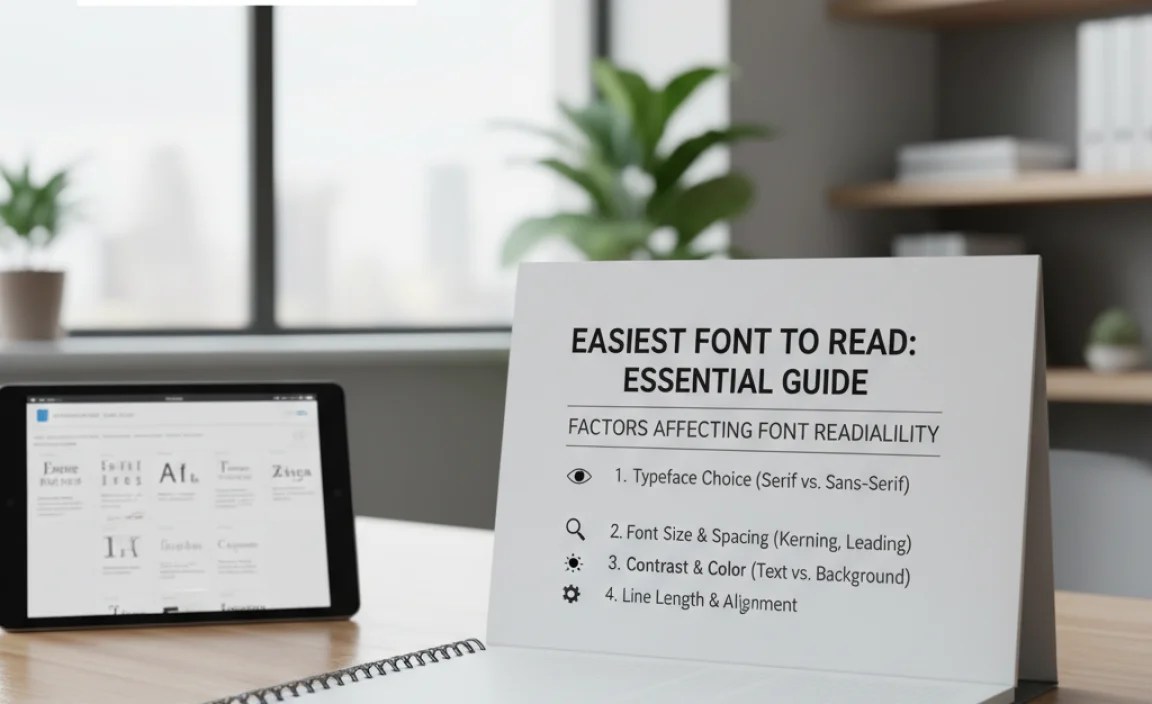
While sans-serifs generally lead the pack for screen readability, several other factors play a vital role:
1. Font Weight
The thickness of your font’s strokes. Regular or Book weights are usually the most readable for body text. Too bold (Heavy or Black) can fill in counters and become illegible, while too light (Hairline or Light) can be too thin for screens, especially at smaller sizes.
2. Font Size
This is perhaps the most obvious factor. Text that is too small will strain the eyes regardless of the font chosen. For body text on a computer screen, aim for a minimum of 16px (pixels) or 1em. Larger sizes are often better for headings or if your audience is diverse in age.
According to the Web Content Accessibility Guidelines (WCAG), text should be resizable without loss of content or functionality. This reinforces the importance of using scalable font sizes.
3. Line Height (Leading)
The space between lines of text. Too little spacing makes lines feel crowded and blend together, hindering readability. Too much spacing can make the text feel disconnected. A general rule of thumb for body text is a line height of 1.5 times the font size (e.g., 16px font with 24px line height).
4. Line Length (Measure)
The number of characters or words per line. Lines that are too long become hard to follow, as the eye struggles to jump back to the beginning of the next line. Extremely short lines can disrupt the reading flow. For web content, aim for around 50-75 characters per line for optimal readability.
5. Contrast
The difference in luminance between the text color and its background color. High contrast is essential for readability. Black text on a white background offers excellent contrast. Avoid low-contrast combinations like light gray text on a white background, or dark blue on black.
6. Spacing (Kerning & Tracking)
- Kerning: The space between specific pairs of letters. Well-kerned fonts have adjusted spacing where needed (e.g., to prevent ‘AV’ from looking too far apart).
- Tracking: Refers to the overall tightness or looseness of letters in a block of text. Slightly increased tracking can improve readability for some fonts, especially at smaller sizes, by giving letters a bit more breathing room.
When Serifs CAN Work on Screen
While sans-serifs are generally favored for digital readability, some serif fonts are designed with screen use in mind. These often have stronger, clearer serifs and more open letterforms than their traditional counterparts.
Examples of readable serif fonts for screen:
- Georgia: Designed by Matthew Carter specifically for Microsoft, Georgia is known for its excellent screen legibility, featuring sturdy serifs and a generous x-height.
- Merriweather: A popular Google Font, Merriweather is a serif typeface designed to be very readable on screen. It has a tall x-height and strong, robust serifs.
- Lora: Another well-designed Google Font, Lora is a well-balanced contemporary serif with roots in calligraphy, offering good readability for longer texts on screen.
Tip: If you’re considering a serif font for digital use, test it at your intended sizes. Does it remain clear and crisp, or do the serifs get lost or create visual noise?
Beyond Body Text: Display Fonts
The advice for “easiest font to read” usually applies to body text – the main content of your writing. However, for headings, titles, logos, and decorative elements, you might use “display fonts.” These fonts are designed to catch the eye and are often more stylized.
While readability is still important, bolder, more decorative, or even some stylized script or serif fonts can work well here because they are used in smaller blocks of text and at larger sizes.
When choosing display fonts, consider:
- Impact: Does it grab attention?
- Brand Personality: Does it reflect your brand’s tone?
- Legibility at Size: Even decorative fonts need to be decipherable when they are large.
How to Choose the Easiest Font for Your Project: A Step-by-Step Guide
Picking the perfect font doesn’t have to be overwhelming. Follow these steps to ensure you choose for maximum readability and impact.
Step 1: Define Your Purpose and Audience
Who are you writing for, and what is the main goal of your text? A children’s book will have different font needs than a legal document. A tech startup might opt for modern sans-serifs, while a historical society might lean towards classic serifs.
Step 2: Consider the Medium
As we’ve discussed, digital screens (websites, apps, presentations) generally favor sans-serifs. Print (books, magazines, flyers) can often accommodate serifs beautifully. If your content will be viewed on both, choose a versatile font or use different fonts for different contexts (e.g., sans-serif for web headlines, a readable serif for print body text).
Step 3: Prioritize Readability for Body Text
For the bulk of your content, aim for clarity above all else. Simple, well-spaced sans-serifs are your safest bet for screen readability. Look for ample white space within and around letters.
Step 4: Test Different Fonts
Don’t settle for the first font you find. Type out a paragraph of your content in a few different candidate fonts. View them at different sizes and on different devices if possible. See which one feels most comfortable to read.
Step 5: Pay Attention to Font Weight and Size
Ensure you’re using an appropriate weight (usually Regular or Medium) and consider the size. For web, 16px is often a good starting point for body text.
Step 6: Check Line Height and Length
Adjust your line height so there’s comfortable space between lines. Keep your line lengths within the recommended character counts for easy scanning.
Step 7: Evaluate Contrast
Make sure your text color and background color have sufficient contrast for accessibility and ease of reading. Tools like color contrast checkers can help ensure you meet WCAG standards, which is vital for web accessibility.
Font Pairing: Combining for Impact
Often, you’ll want to use more than one font to create visual hierarchy. A common and effective pairing is to combine a serif and a sans-serif font.
Classic Pairing:
- Headings: A distinctive serif (e.g., Playfair Display, Merriweather).
- Body Text: A clean sans-serif (e.g., Open Sans, Lato, Roboto).
This creates clear contrast and guides the reader’s eye from attention-grabbing headings to easily digestible content.
Modern Pairing:
- Headings: A bold, strong sans-serif (e.g., Montserrat, Oswald).
- Body Text: A simple, highly readable sans-serif (e.g., Arial, Calibri, Open Sans).
This approach emphasizes modern, clean, and direct communication.
When pairing, ensure the fonts complement each other’s personality and x-height. Avoid using too many fonts – two or three is usually the maximum you’ll need.
Where to Find Easy-to-Read Fonts
There are numerous resources for finding high-quality fonts, many of them free!
Free Resources:
- Google Fonts: A vast library of open-source fonts, all optimized for web use and free to download and use. This is an excellent starting point for finding readable sans-serifs and serifs.
- Font Squirrel: Offers a curated collection of free fonts that are licensed for commercial use.
- DaFont: While it has a huge selection, be mindful of licensing for commercial projects. Many are free for personal use only.
Paid Resources:
- Adobe Fonts: Included with Adobe Creative Cloud subscriptions, offering a premium selection of high-quality fonts.
- MyFonts: One of the largest marketplaces for commercial fonts, offering a vast array of styles and foundries.
- Linotype / Monotype: Major type foundries with extensive professional libraries.
When selecting from these sites, always check the licensing agreements to ensure you can use the font for your intended purpose (personal vs. commercial, web use vs. print, etc.).
FAQ: Your Top Font Readability Questions Answered
What is the single easiest font to read on a computer screen?
For general computer screen readability, sans-serif fonts like Arial, Calibri, and Helvetica are consistently ranked among the easiest to read due to their clean lines that render well on digital displays.
Are serif fonts hard to read on screens?
Traditional serif fonts can sometimes be harder to read on screens, especially at smaller sizes, because the fine serifs can appear blurry or pixellated. However, some modern serif fonts are designed specifically for screen readability.
Which font is best for long online articles?
For long online articles, the easiest font to read would be an open, highly legible sans-serif like Open Sans, Lato, or